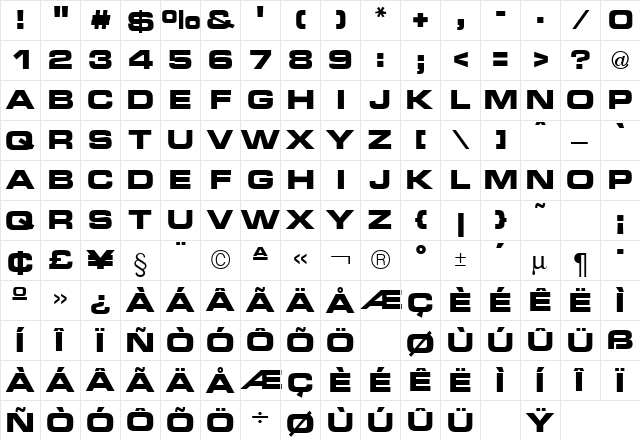
Micro Technic Extended Bold
Design Context for Micro Technic Extended Typeface
Micro Technic Extended channels digital-age aesthetics through its sharp, structured letterforms — ideal for brands that want to signal innovation. Its bold stroke weight gives it real presence on the page.
Pro Tip: Use Micro Technic Extended in combination with a neutral sans for body text. Let it define the brand voice in headlines while keeping reading comfortable elsewhere.